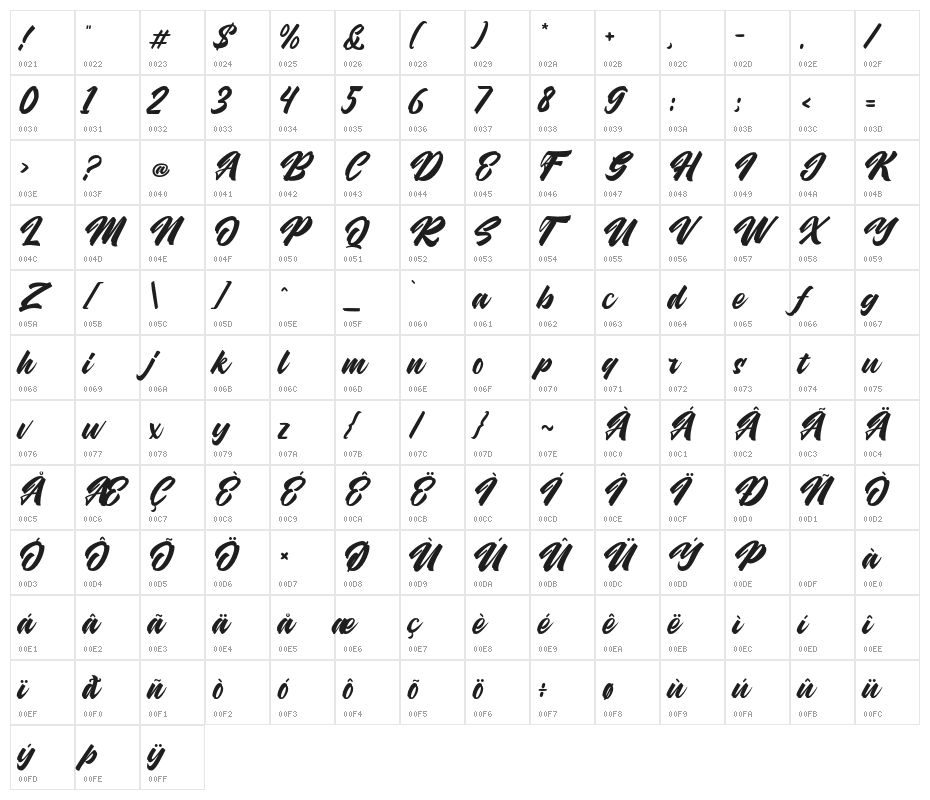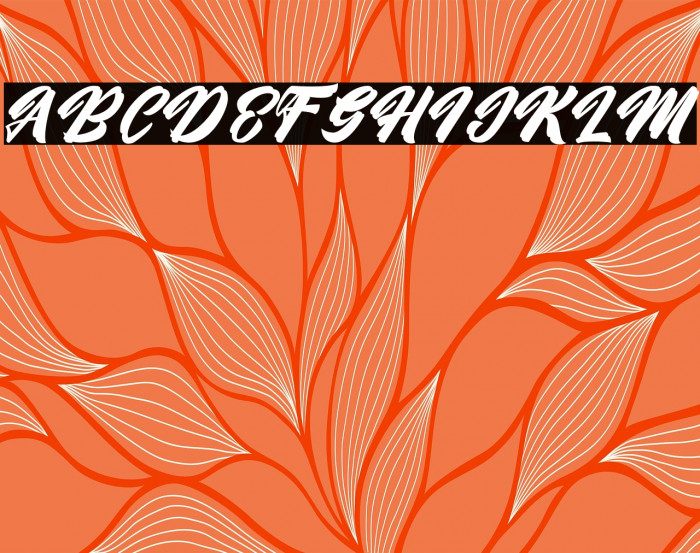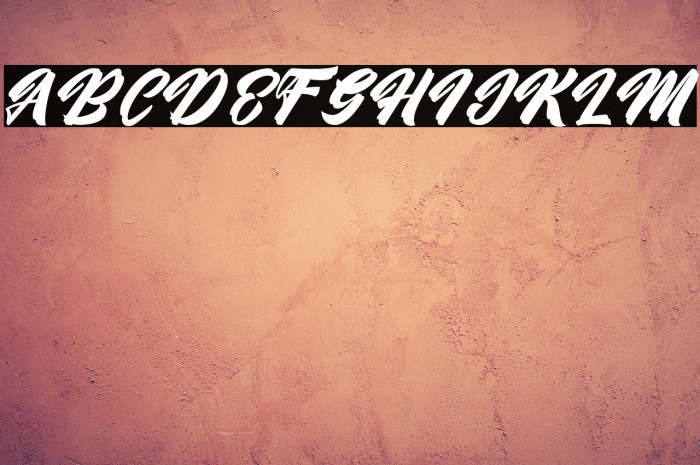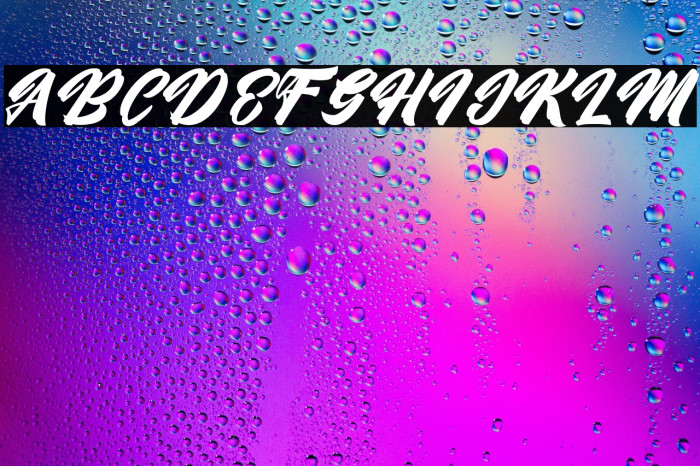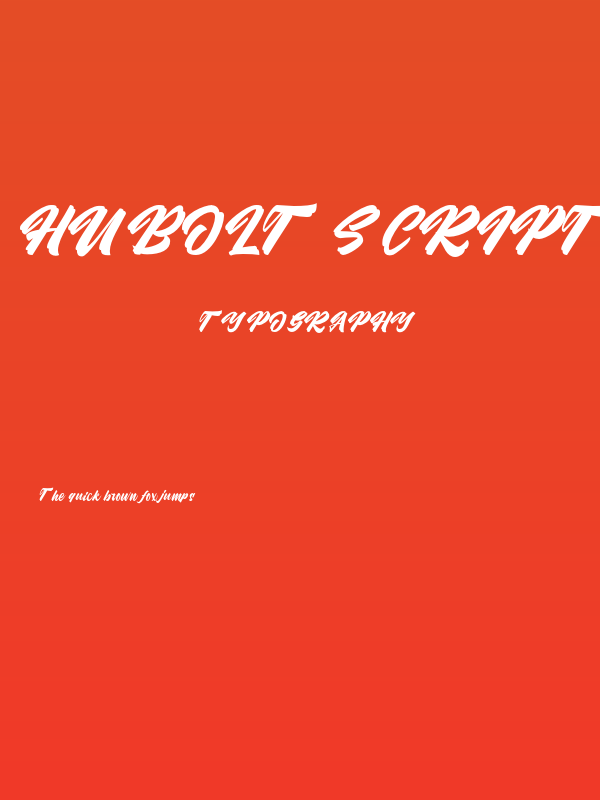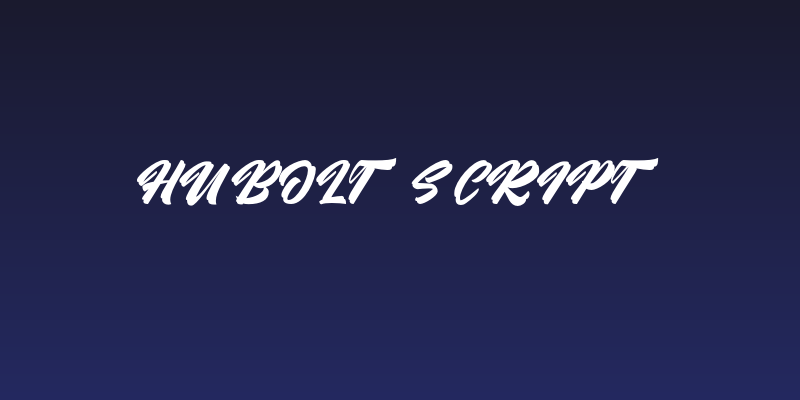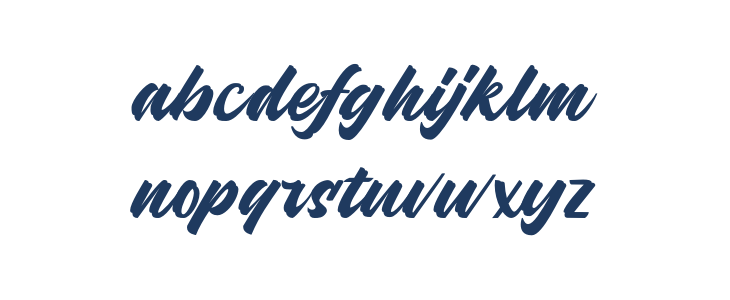
Hubolt Script Font
Hubolt Script Description
This font features a bold and dynamic script style, characterized by its flowing, cursive letterforms that convey a sense of elegance and movement. The strokes are thick and consistent, providing a strong visual impact. The uppercase letters are slightly more ornate, with sweeping curves and flourishes, while the lowercase letters maintain a smooth and connected appearance. The numbers and special characters are designed to match the overall aesthetic, ensuring a cohesive look across all text. This font is well-suited for projects that require a touch of sophistication and flair.
| Use Case | Logos, Headlines, Invitations |
| Proposed Projects | Ideal for wedding invitations, branding, logos, and elegant packaging designs. |